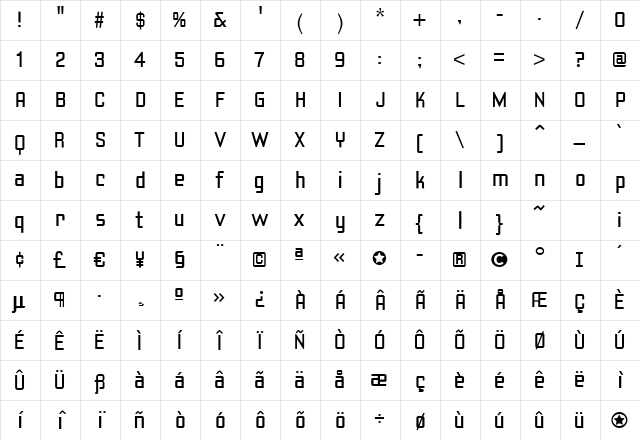
Complete Yearling Medium glyph index. Displaying only characters natively supported by Yearling Medium font.
Yearling is a composed and adaptable typeface that performs quietly and consistently across a wide range of design contexts.
Who designed the Yearling Medium font?